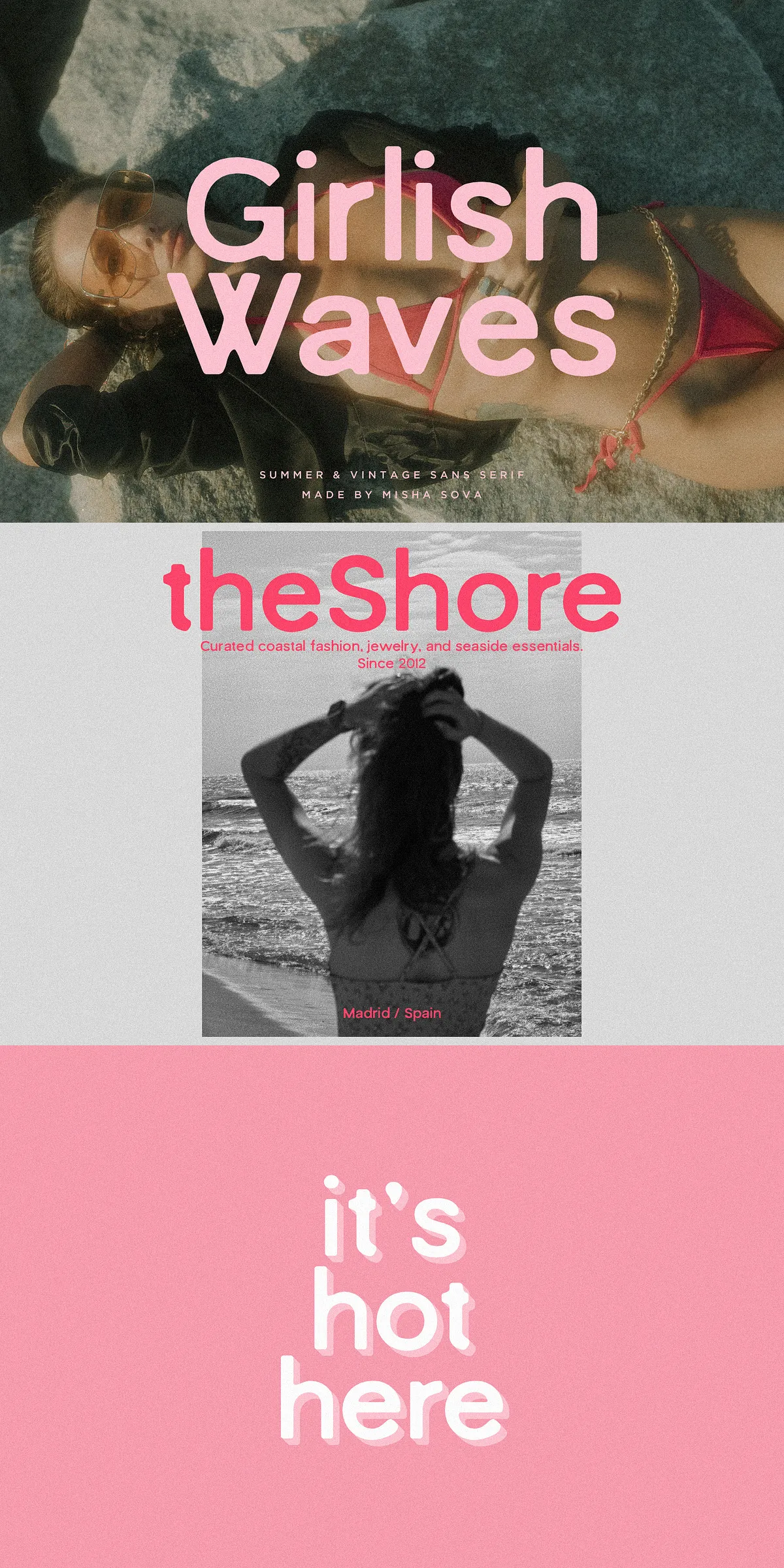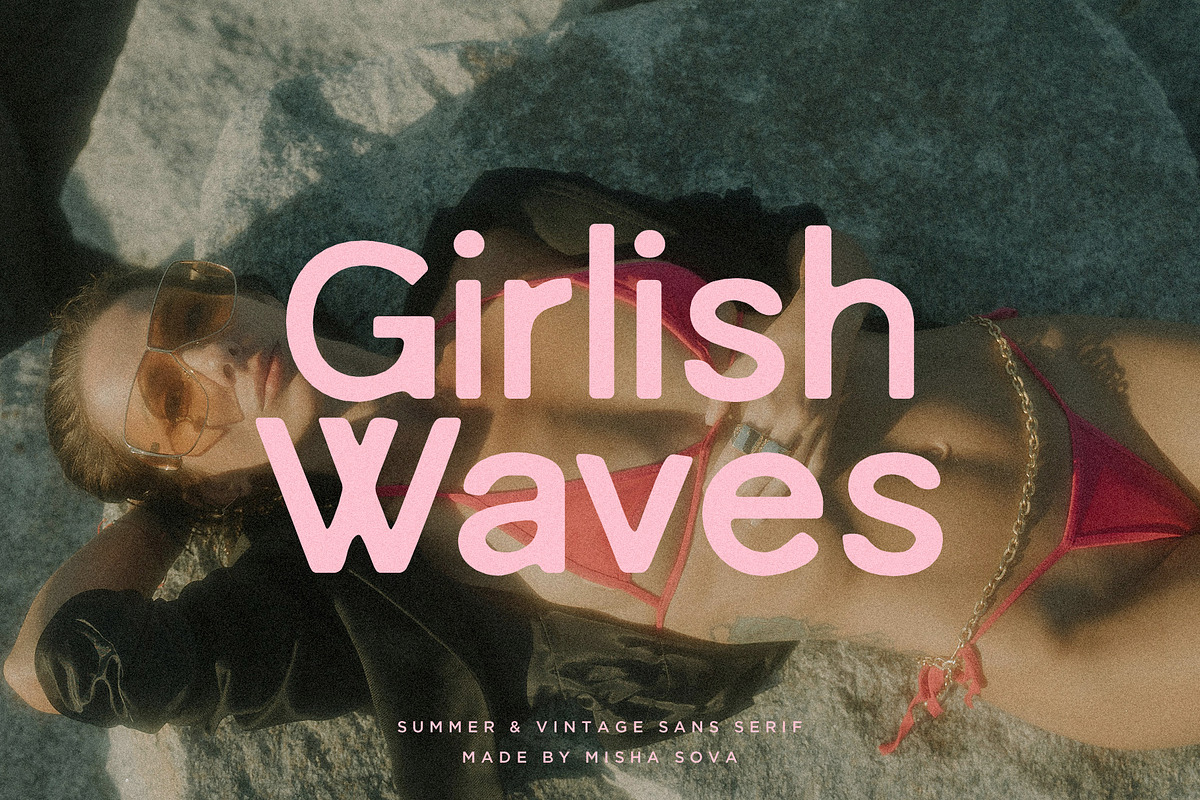
Unleash the golden glow of summer with Girlish Waves – Summer Sans, a delightfully breezy, feminine sans serif typeface crafted by Misha Sova. This font doesn’t just convey a season — it *embodies* it. With its fluid motion, soft-edged letterforms, and airy elegance, Girlish Waves flows like ocean waves under a golden sun, capturing the lightness, joy, and carefree spirit of summer in every character. Whether you’re building a beachwear brand identity or designing a dreamy Instagram post, this typeface delivers charm, warmth, and visual harmony in one seamless package.
Why Girlish Waves Stands Out: A Font Built for Joy and Grace
More than just a pretty arrangement of letters, Girlish Waves is a design mood. Its gentle curves, slightly swaying baseline, and delicate serifs (where present) create a rhythm that feels alive. Each letter has personality — playful without being childish, polished without being cold. This balance makes it ideal for brands and creators who want to stand out with warmth, authenticity, and an undeniable sense of style.
Designed with modern simplicity as its core philosophy, Girlish Waves avoids clutter. Clean lines, generous spacing, and balanced proportions ensure maximum readability — even in longer text blocks. The result? A font that looks effortlessly elegant, whether used in a bold header or a soft caption.
Key Features That Elevate Your Design Work
- Light & Feminine Aesthetic – The delicate stroke weight and soft curves give this font a refreshing, girly vibe — perfect for feminine brands, beauty products, or lifestyle content.
- 300+ High-Quality Glyphs – Includes full uppercase and lowercase letters, numerals, punctuation, symbols, and special ornaments. Rich character set supports global designs.
- Multilingual Support – Offers extended language coverage for Western European, Cyrillic, and other language systems, making it ideal for international campaigns.
High-Impact Use Cases for Girlish Waves – Summer Sans
From seasonal campaigns to personal creativity, Girlish Waves transforms projects with a sun-drenched flair. Here’s where it truly shines:
Top 6 Creative Applications
- Beachwear & Summer Apparel Brands – Add a lighthearted, stylish voice to labels, packaging, and storefront signage. Think: “Sunset Swimwear” or “Tropical Breeze” with matching type on product tags.
- Instagram & Social Media Quotes – Pair with soft pastel or ocean-themed backgrounds for quote graphics, stories, or carousel posts. The font’s flow mimics the rhythm of waves — perfect for content that feels organic and refreshing.
- Dreamy Stationery & Invitations – Ideal for baby showers, bridal registries, summer weddings, and seasonal greeting cards. Creates a delicate, romantic tone that feels personal and heartfelt.
- Beauty & Skincare Campaigns – Use for labels on skincare bottles, product packaging, or social ads to evoke serenity, purity, and a wellness-focused lifestyle.
- Blog Headers & Website Copy – Add a touch of personality to blog titles, section headers, or “about” sections. The light weight ensures readability while maintaining visual interest.
- Festival & Event Promotions – Great for summer music festivals, art fairs, or weekend retreats. Brings energy and a sense of fun to digital flyers and posters.
Future-Ready Design with Seamless Integration
Get the Most Out of Your Font
- Use light weights for headers and captions for a soft, open look.
- Pair with clean sans serifs (e.g., Helvetica Neue, Lato) for contrast in body text.
- Apply to text on curved paths for creative logos or watercolor-style designs.
- Use in combination with soft gradient overlays or texture backgrounds for added depth.
Elevate Your Projects with Girlish Waves – The Summer Signature Type
Don’t just design around a season — let your type become the season. With Girlish Waves – Summer Sans, you’re not choosing a font. You’re choosing a mood, a feeling, a moment in time — warm, bright, and carefree.